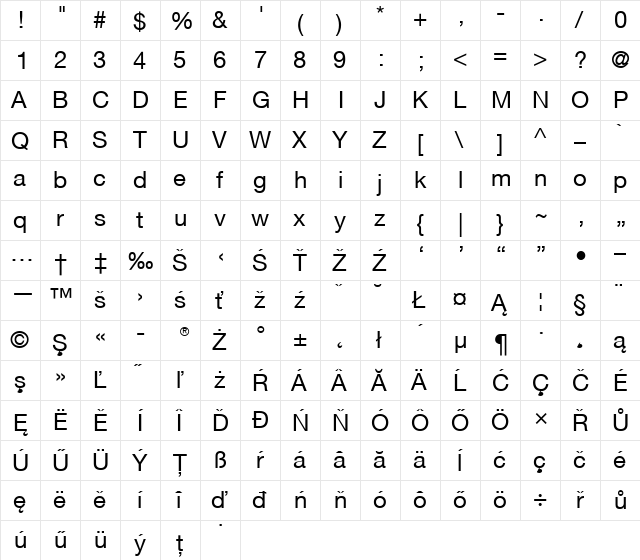
Helvetica CE 55 Roman Regular
Design Context for Helvetica CE 55 Roman Typeface
Helvetica CE 55 Roman offers clean, dependable letterforms without strong stylistic allegiance, making it a practical choice for designers who need flexibility.